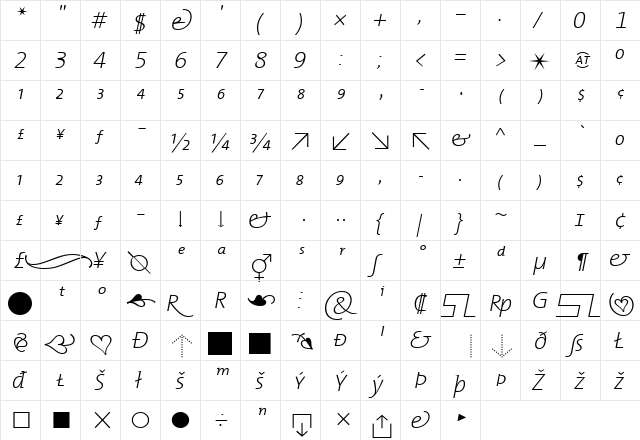
TheMixExtLigExpIta Regular
Design Context for TheMixExtLigExpIta Typeface
TheMixExtLigExpIta is a composed and adaptable typeface that performs quietly and consistently across a wide range of design contexts.